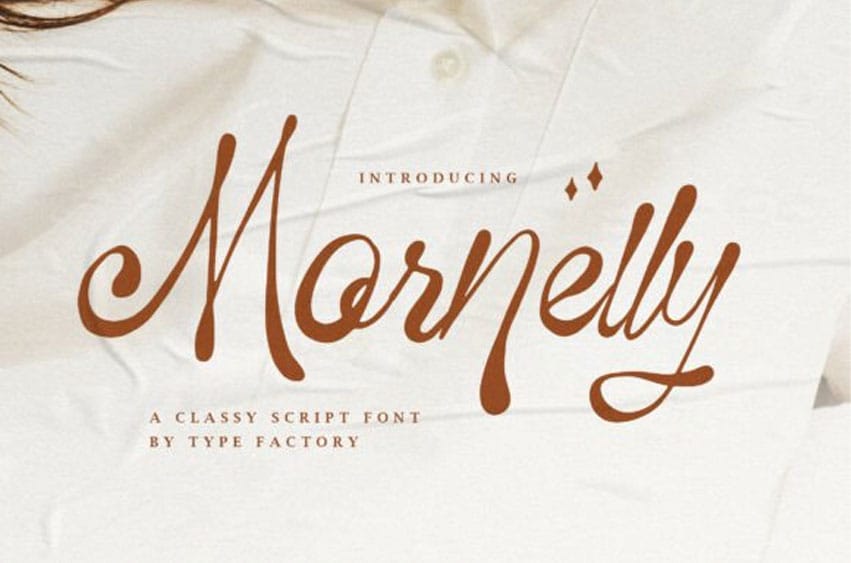
Mornelly Font is a modern script typeface featuring flowing letterforms, smooth curves, and balanced stroke contrast. The character set includes natural connections supported by ligatures and stylistic alternates to create refined typographic compositions.
This typeface works well for branding identities, fashion campaigns, boutique packaging, product labels, social media visuals, wedding stationery, and editorial layouts that require expressive script typography.
Mornelly includes uppercase and lowercase characters, numerals, punctuation, ligatures, stylistic alternates, and multilingual support. The structure is optimized for headline and display usage rather than long paragraph settings.